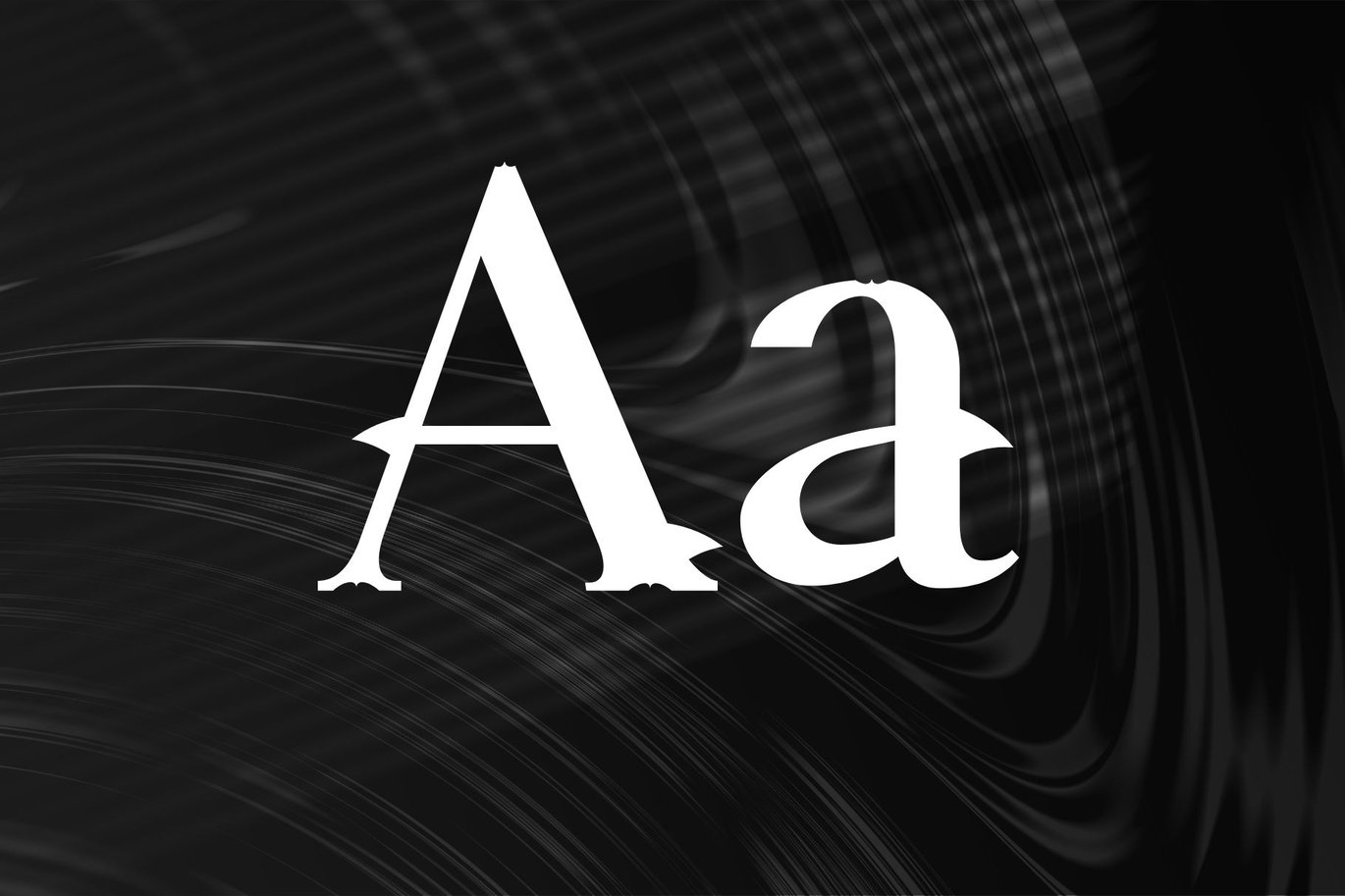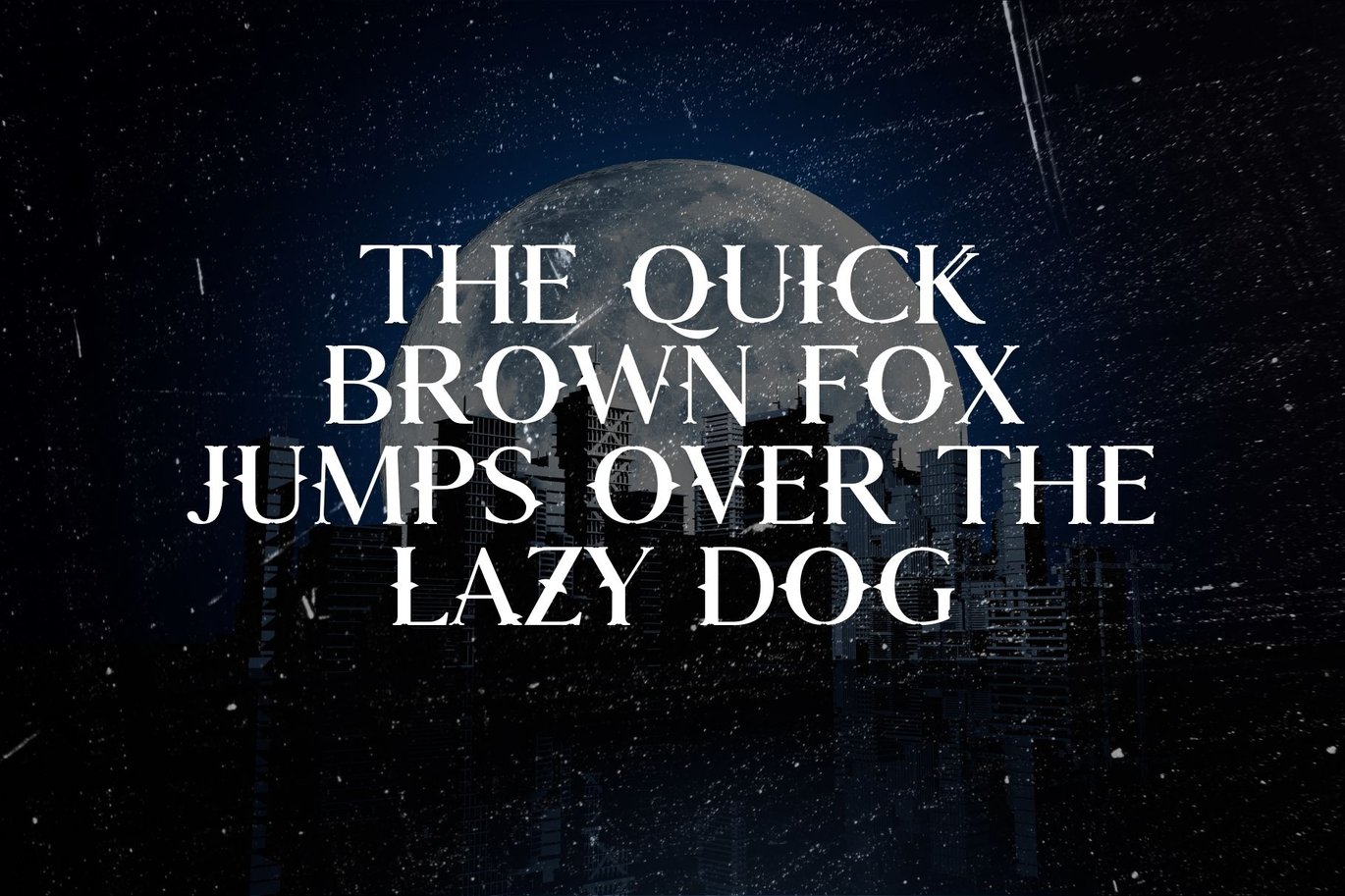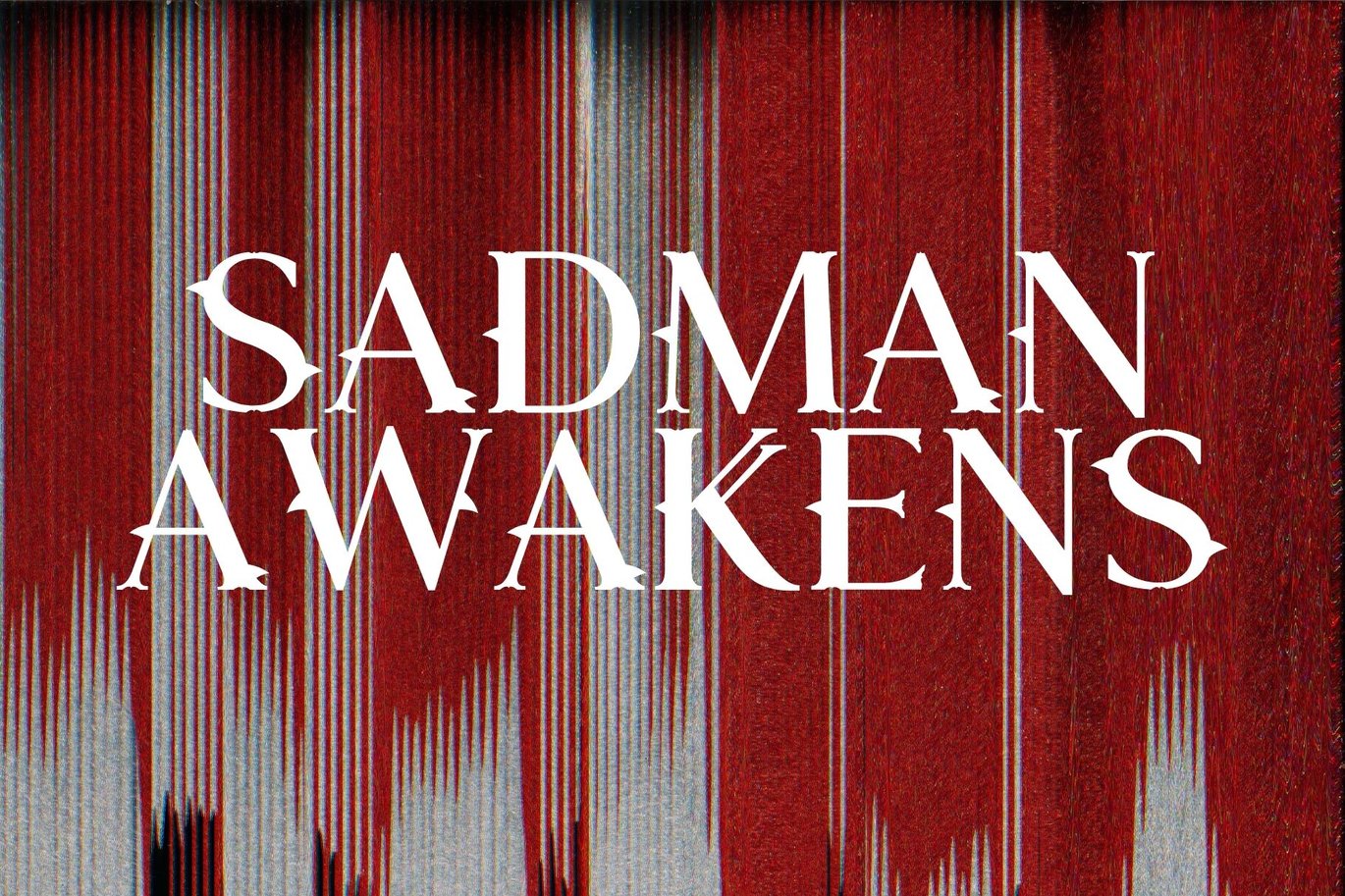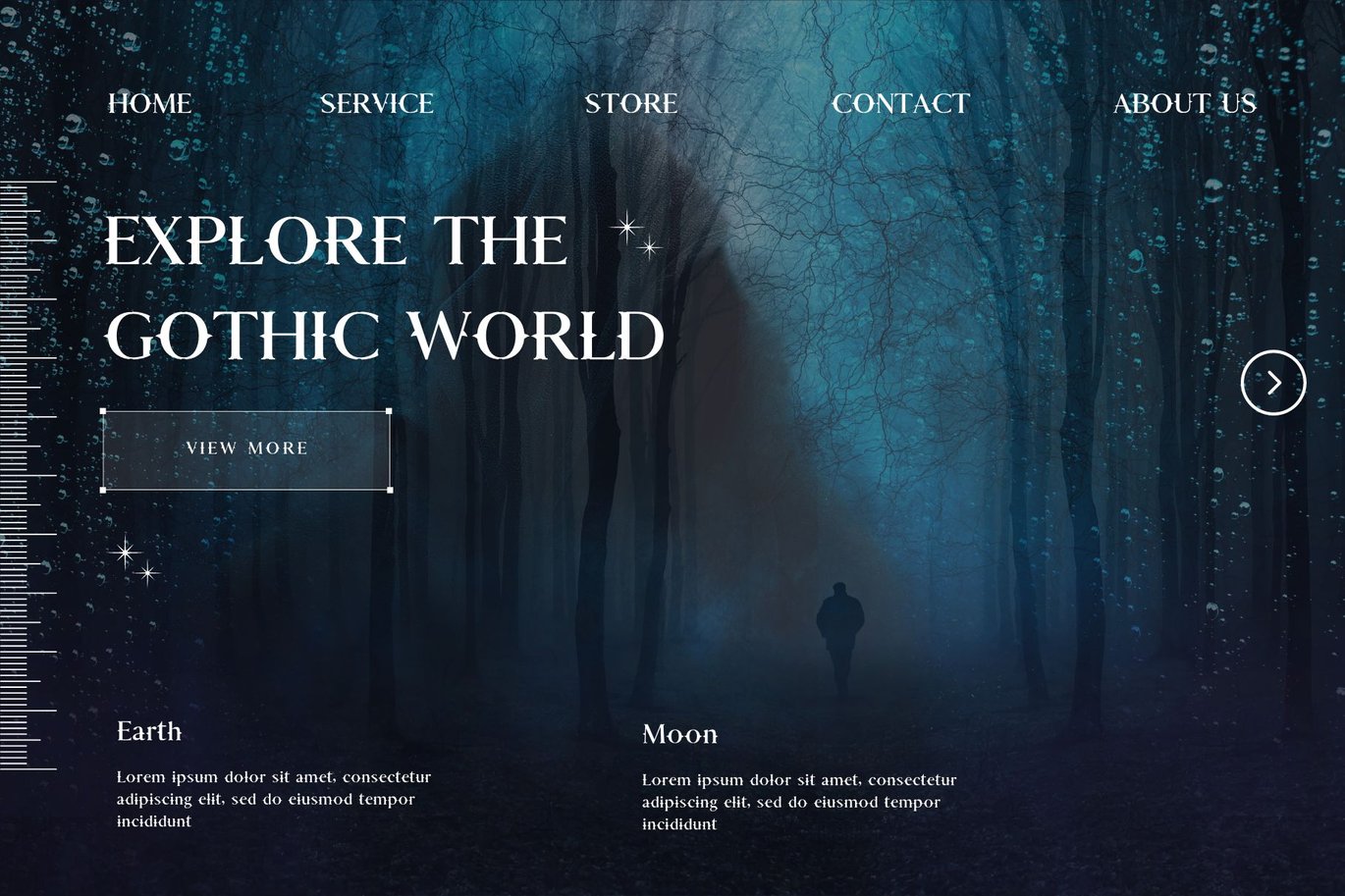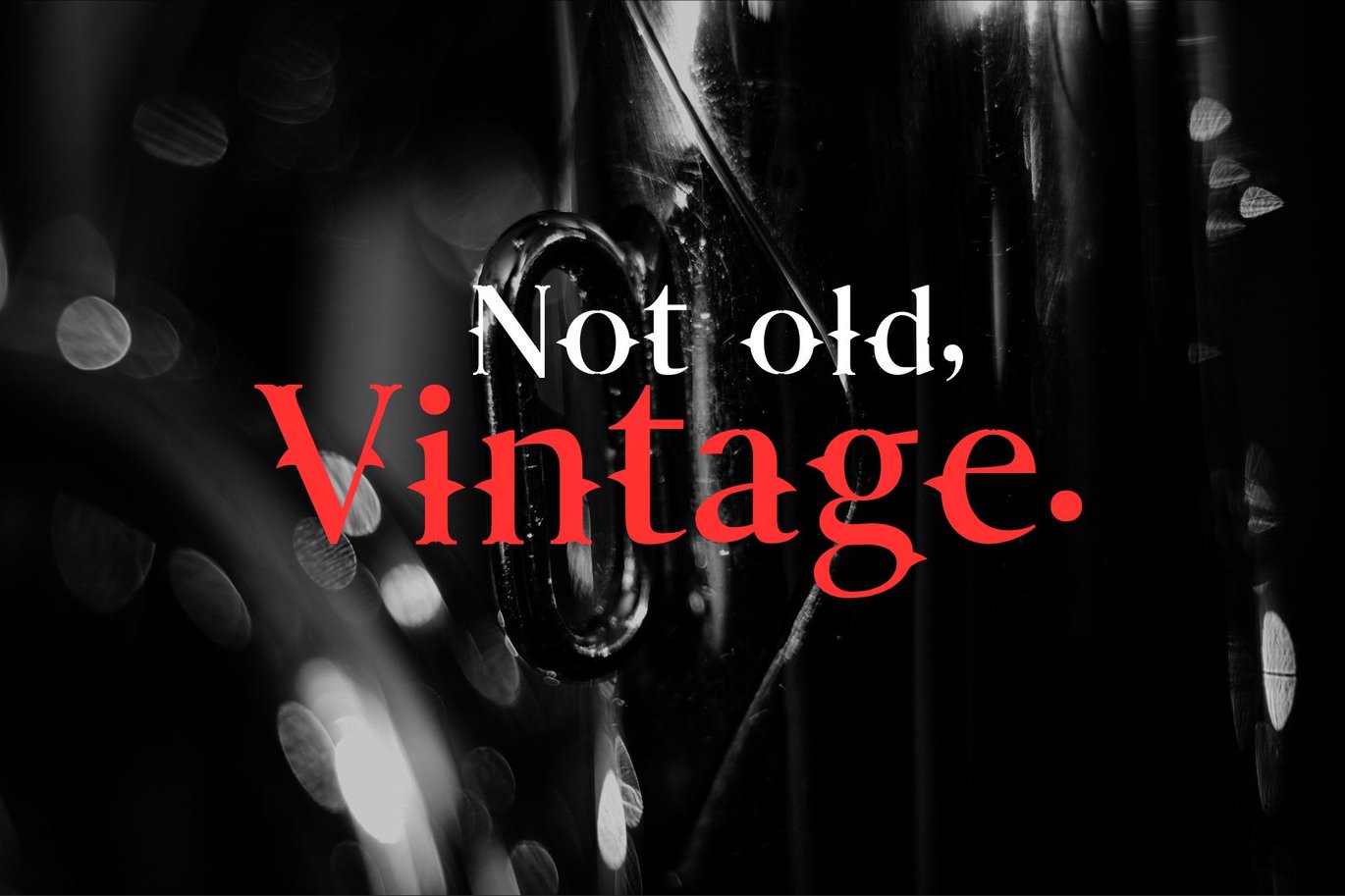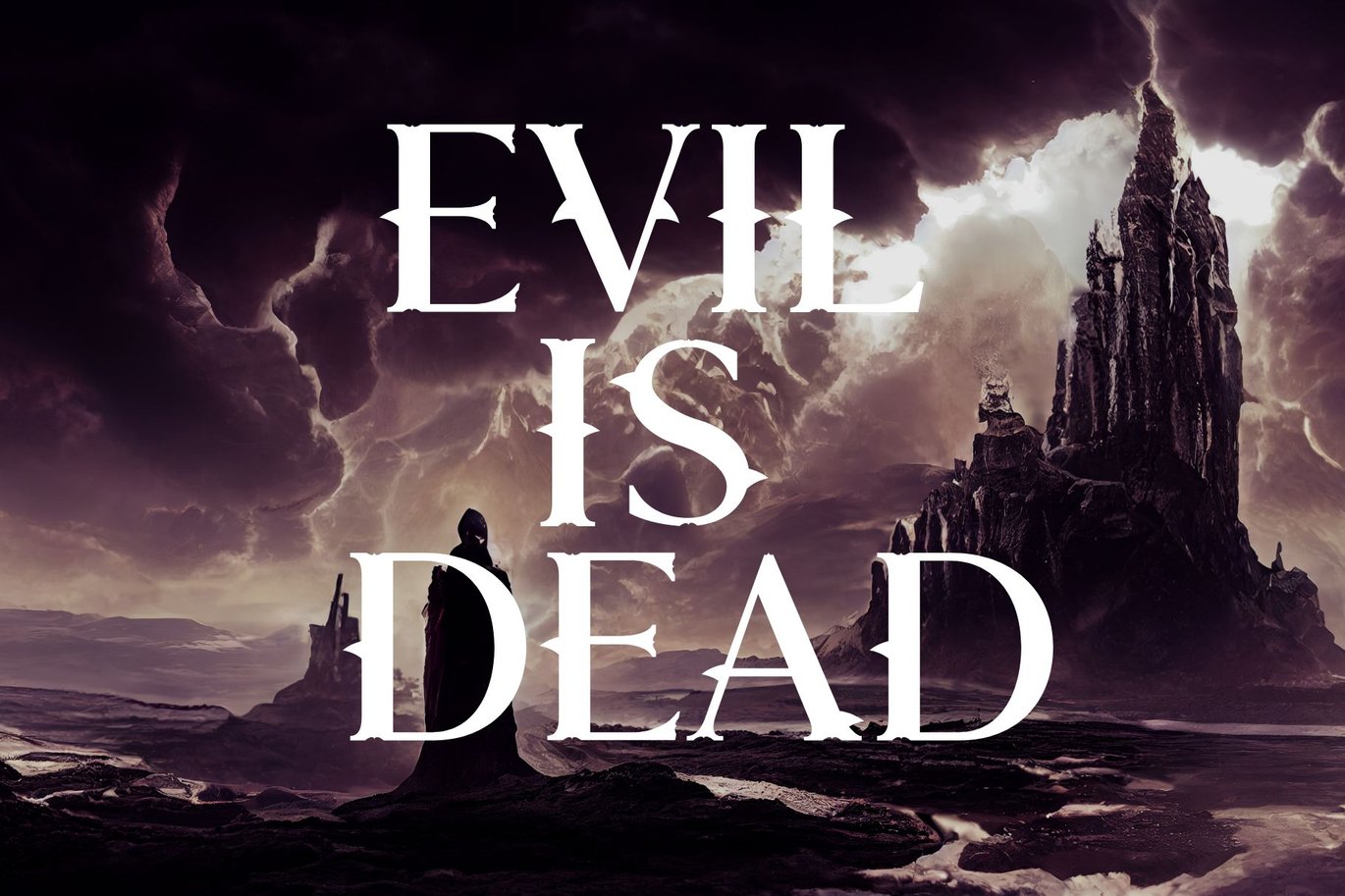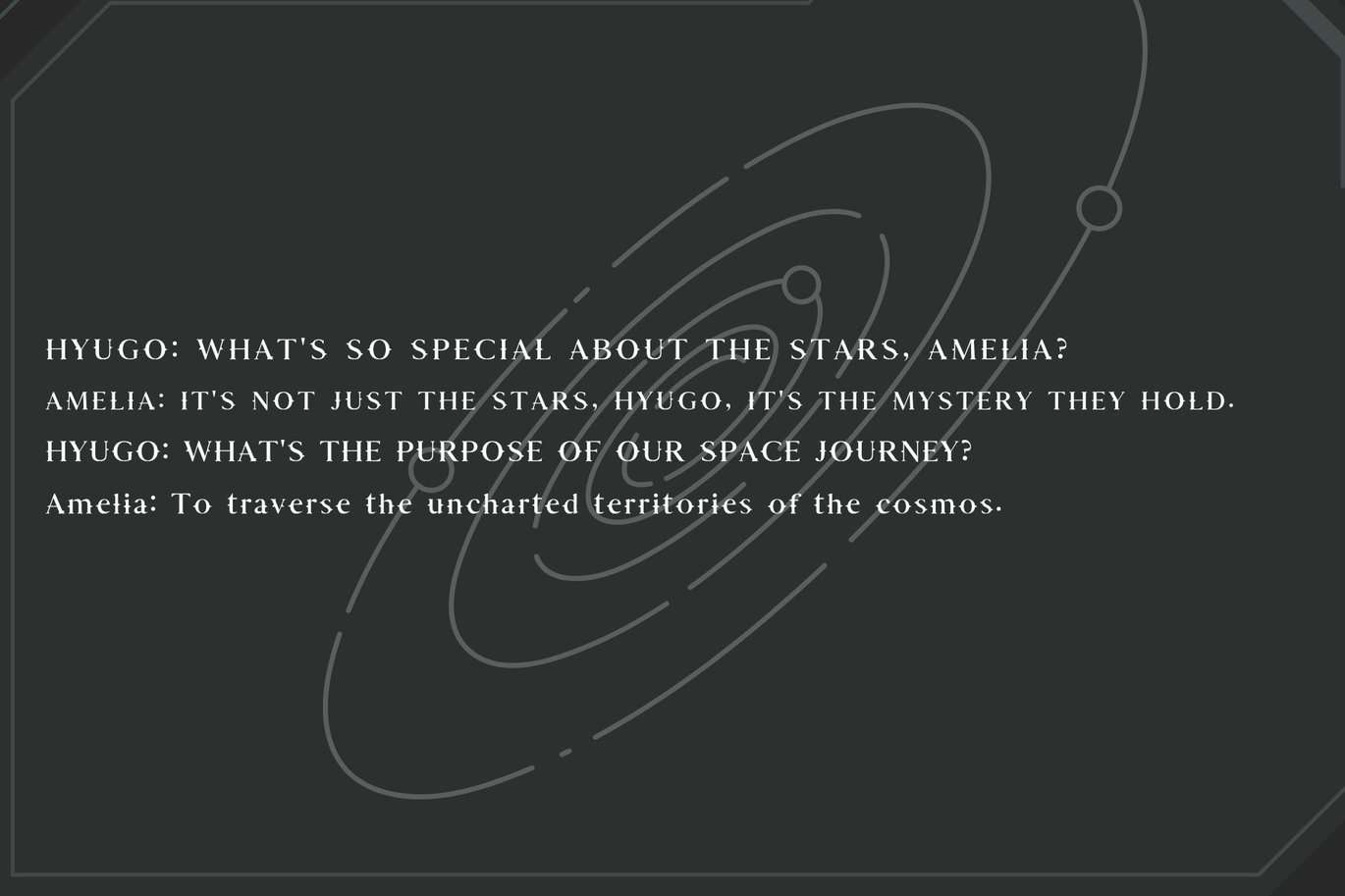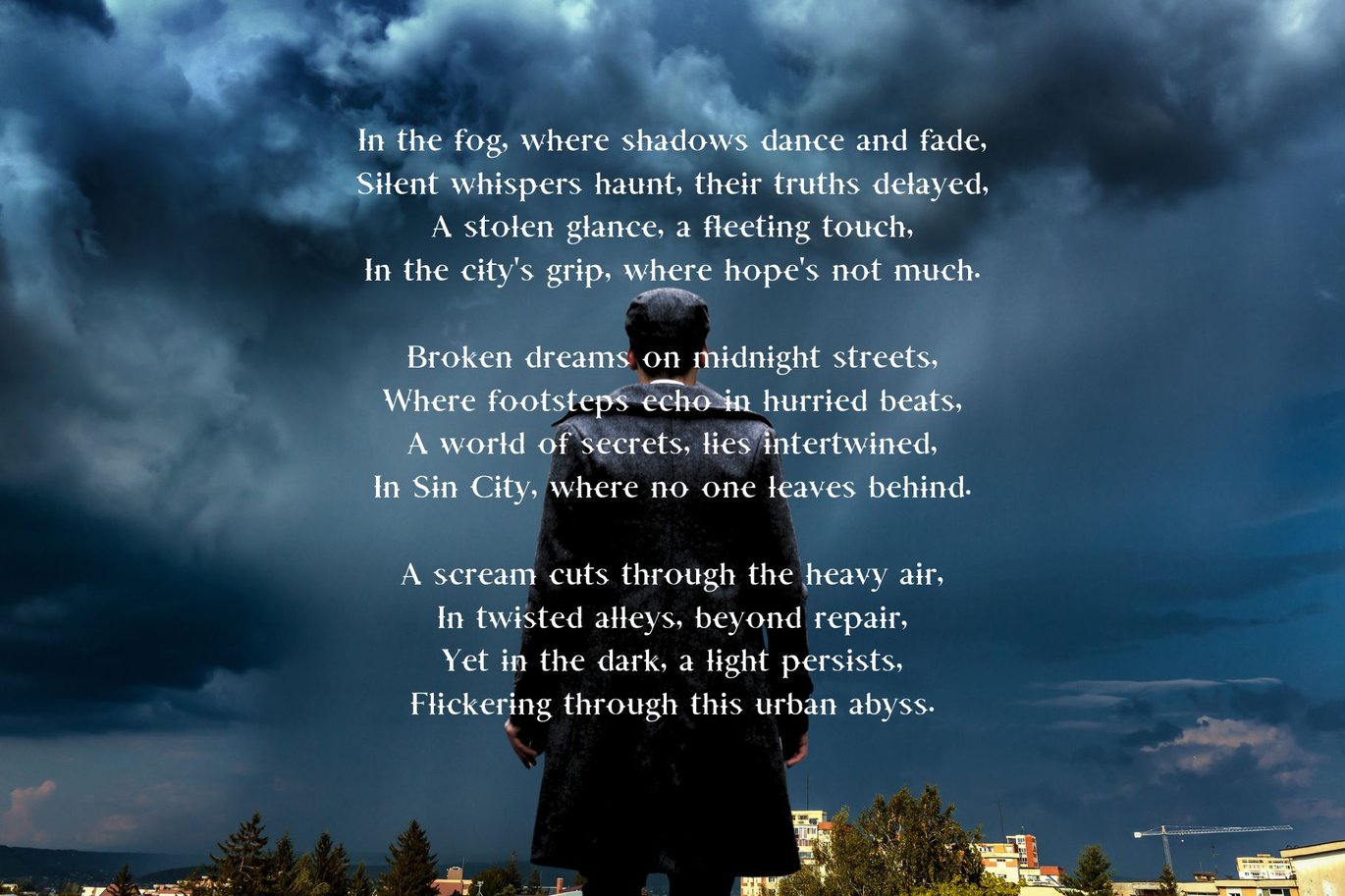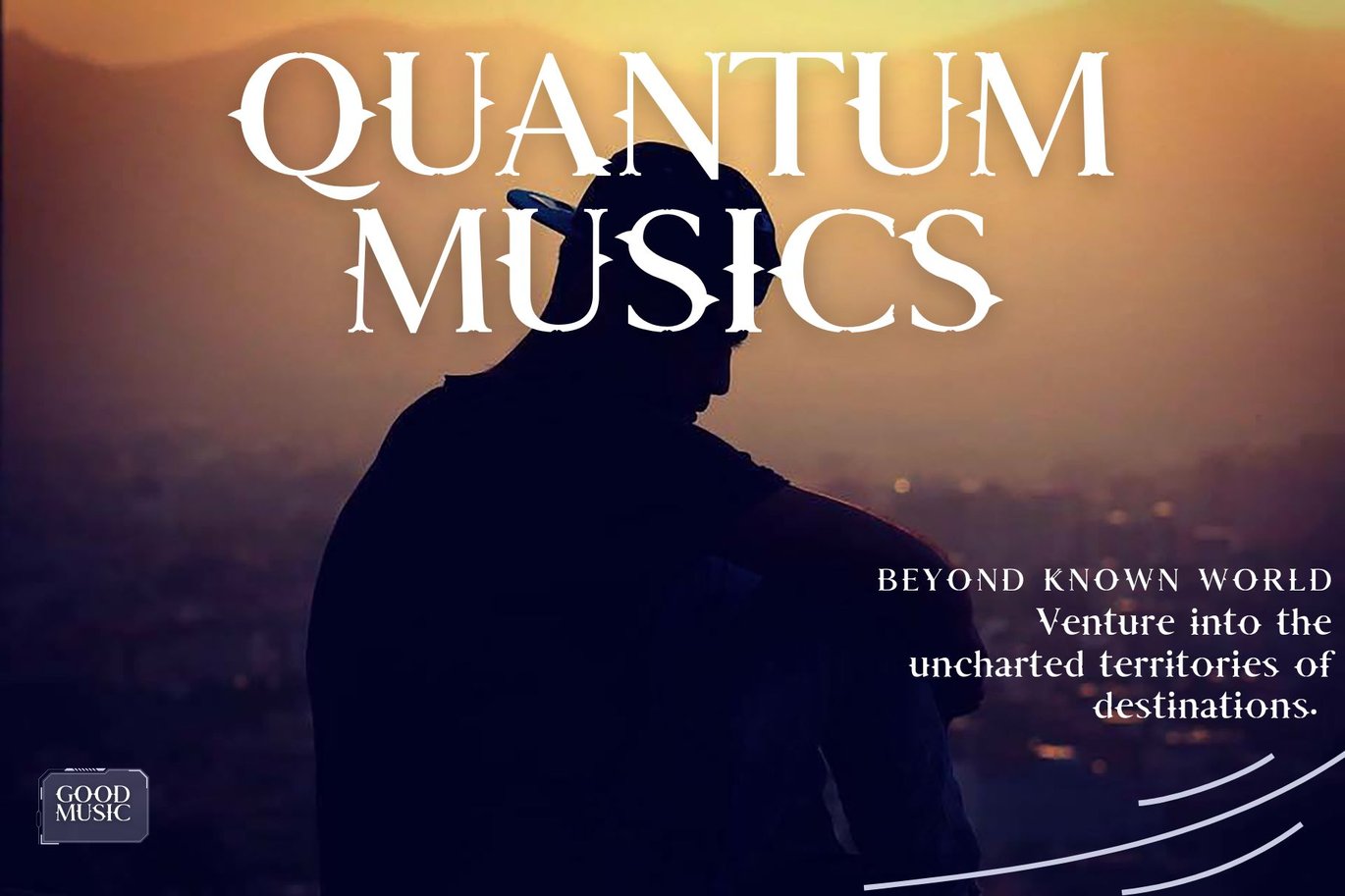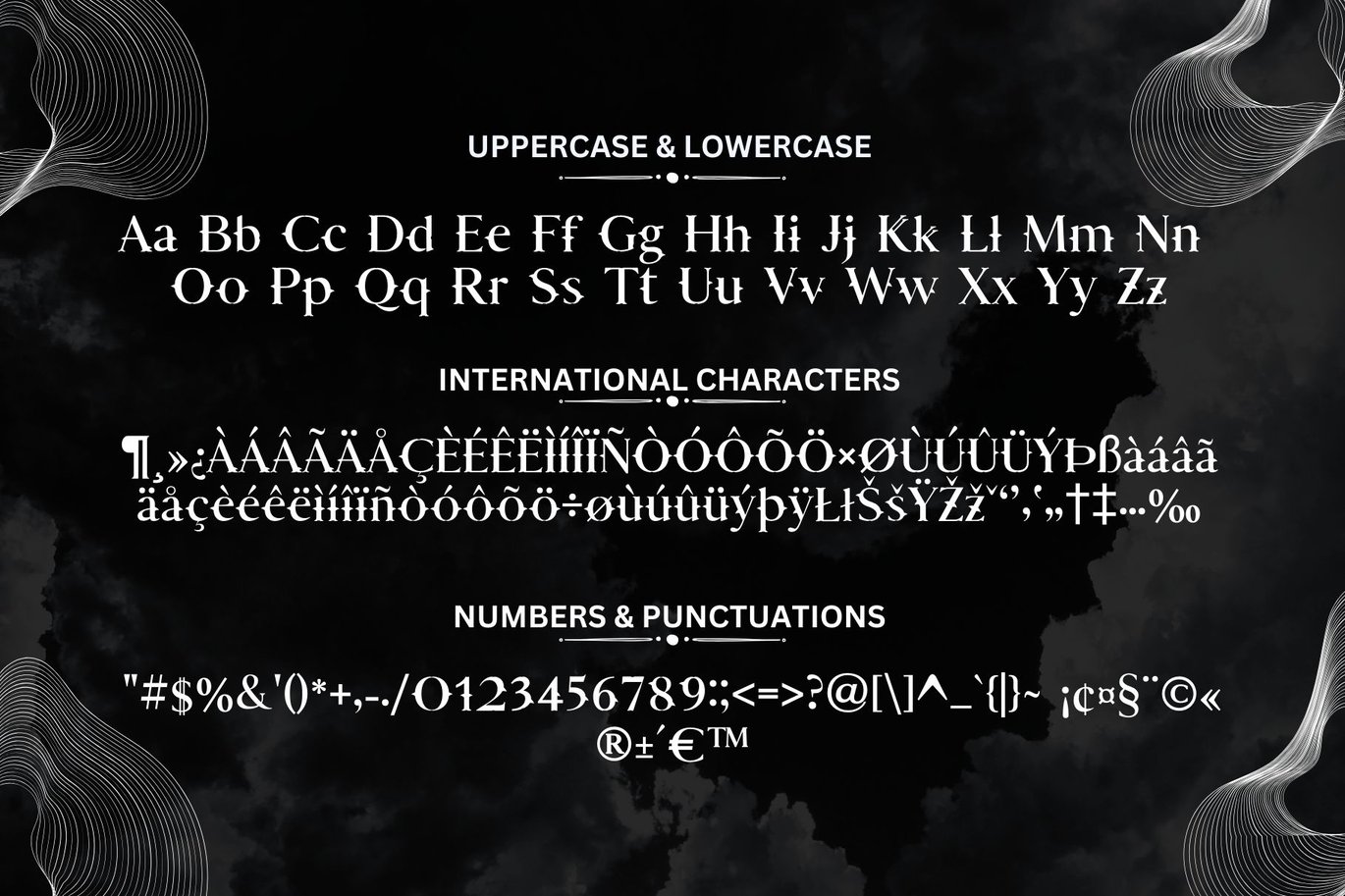
Aestura – Gothic Font
Aestura is a Gothic and Horror display font that brings any design a striking and eerie feel. Its sharp and bold lettering makes it ideal for horror movie posters, book covers, or Halloween-themed projects. The font’s strong, dark appearance immediately draws attention, giving your designs a distinct and mysterious atmosphere.
With both uppercase and lowercase letters, numbers, punctuation, and special characters for various languages, Aestura offers flexibility for a range of design needs. Whether you’re working on a project with Gothic inspiration, a fantasy theme, or a dramatic edge, Aestura can create a bold and haunting character in your work.
- Complete character set, including international characters, as shown in the preview image